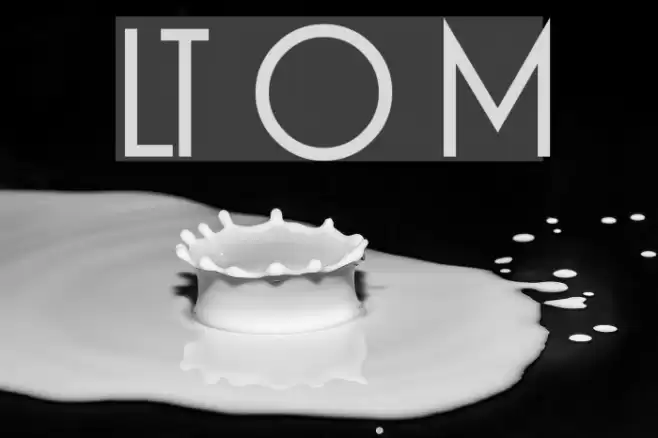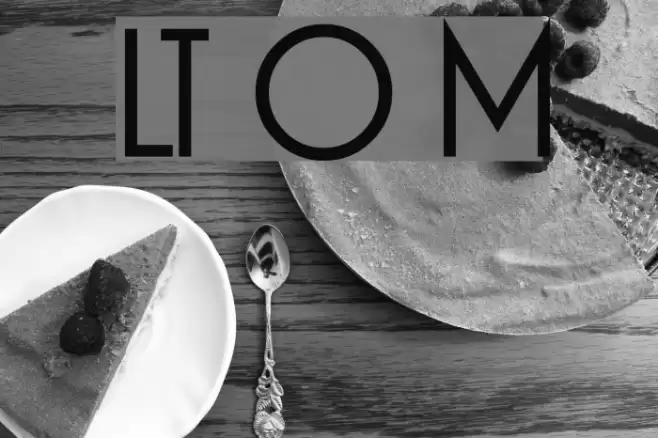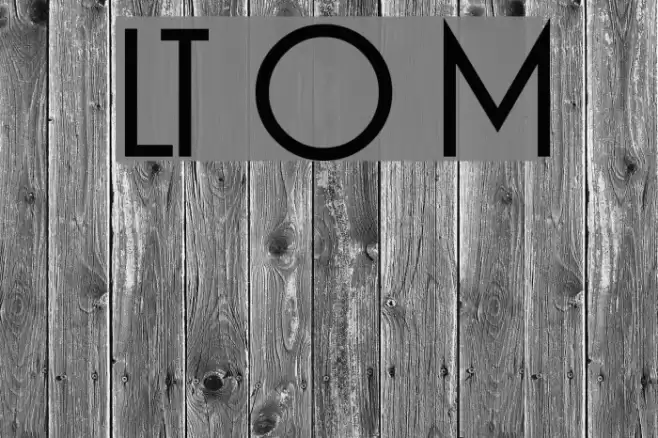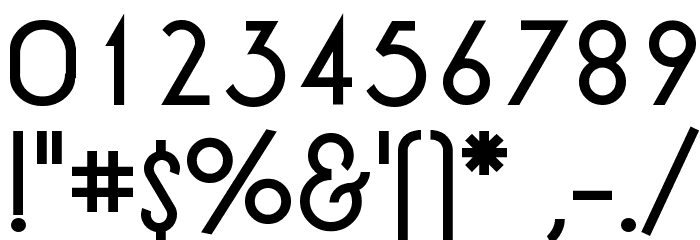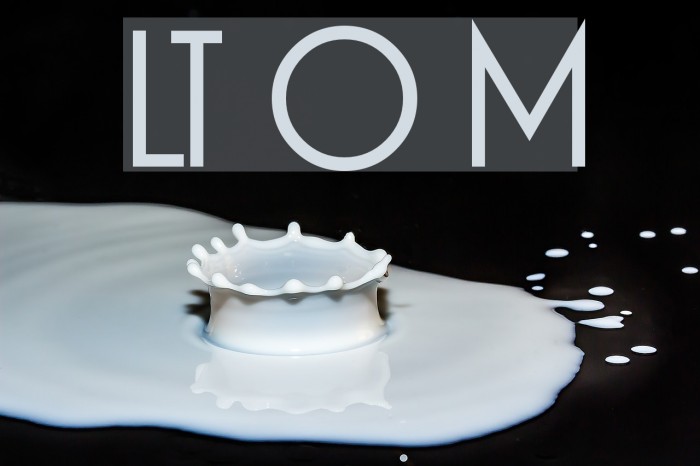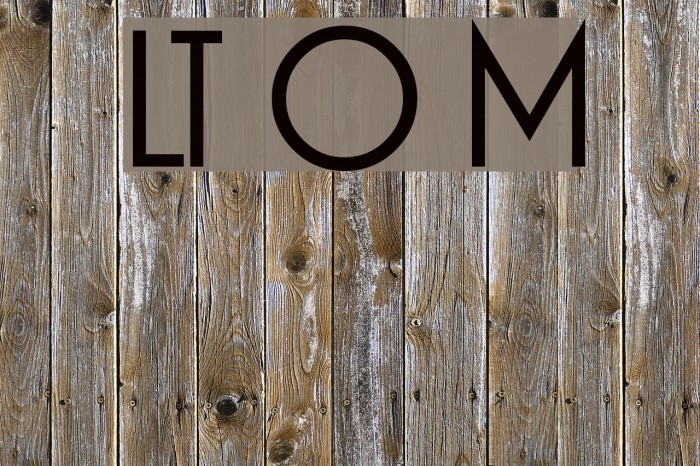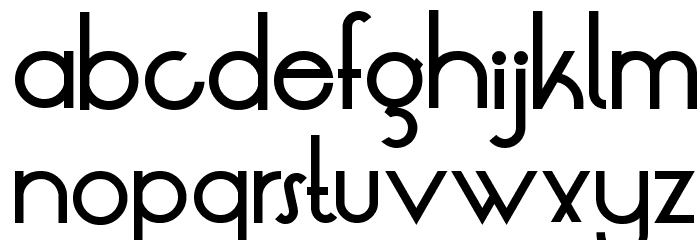
LT Oksana Medium Font
LT Oksana Medium Description
This font features a clean and modern design with a geometric structure. The uppercase letters are tall and elegant, while the lowercase letters maintain a consistent roundness that adds a touch of softness. The numerals are clear and distinct, making them easily readable. Special characters are well-defined, adding versatility to the font. The overall appearance is sleek and contemporary, suitable for a variety of design applications.
A modern, geometric font with clean lines and a sleek appearance from Retro fonts.